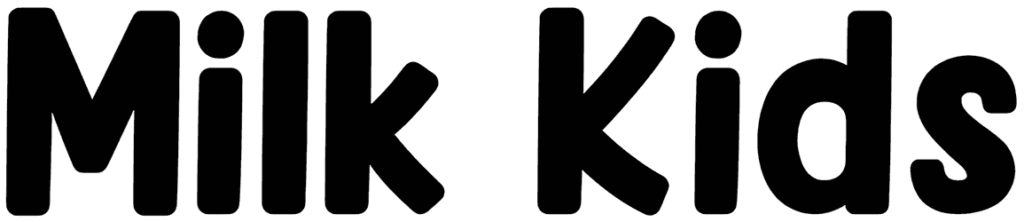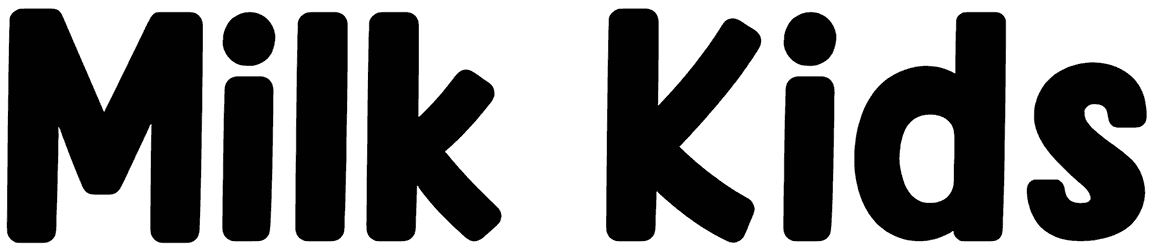
Milk Kids Font
Milk Kids allows readers to navigate anywhere on your site, poster, or ad. Because its playful and simple design attracts their attention and is excellent for label use. This cartoon font can convey various feelings and look different, depending on your use.
For this reason, a fancy font will be in your treasure for years, and by playing with its distinct features in other forms, you can show off various aspects of your creativity.